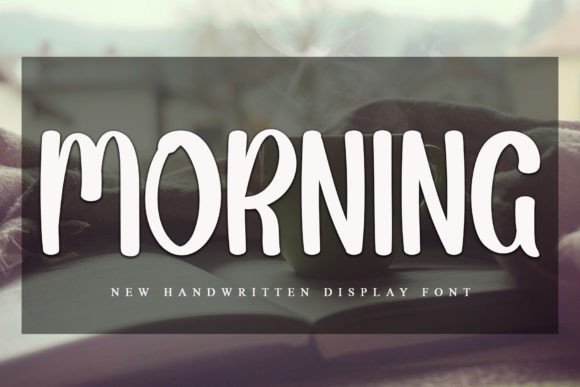
Introducing Morning Font - the ultimate script font for modern website designers! Created by PiPi Creative, this font family is one of the best choices for anyone who wants to add a touch of elegance to their projects. With its neat and beautiful handwritten style, Morning Font is perfect for creating captivating designs that are sure to stand out.
What makes Morning Font truly unique is its timeless and distinct style. This font is guaranteed to add an elegant touch to any project, making it the perfect choice for anyone who wants to create something truly special. Whether you're designing a new website or creating social media graphics, Morning Font is sure to elevate your designs to new heights.
But don't just take our word for it - try Morning Font for yourself and see the difference it can make! With its smooth and effortless strokes, this font is perfect for creating eye-catching titles, captions, and more. Plus, with its versatile range of weights, you can easily customize Morning Font to suit your project's specific needs.